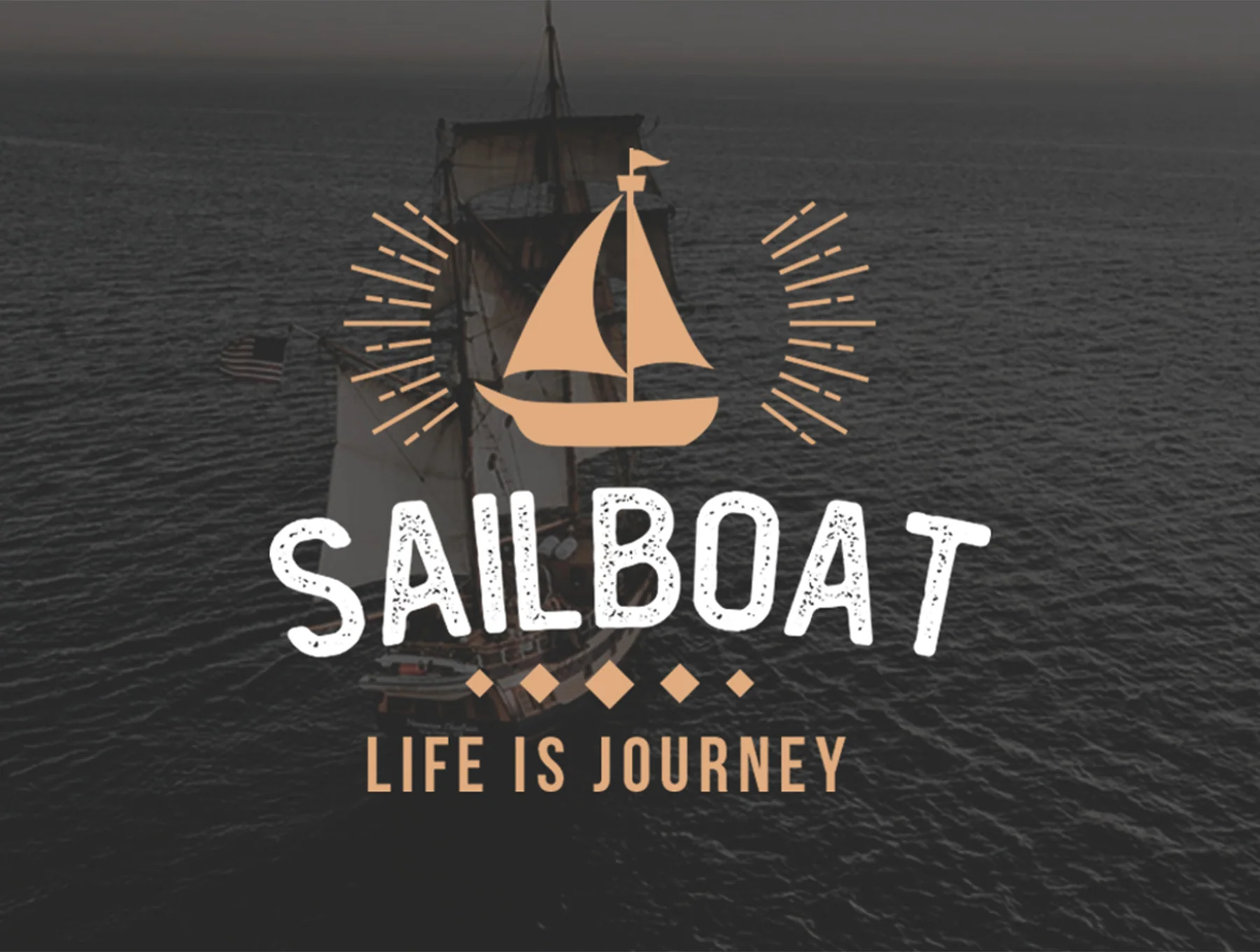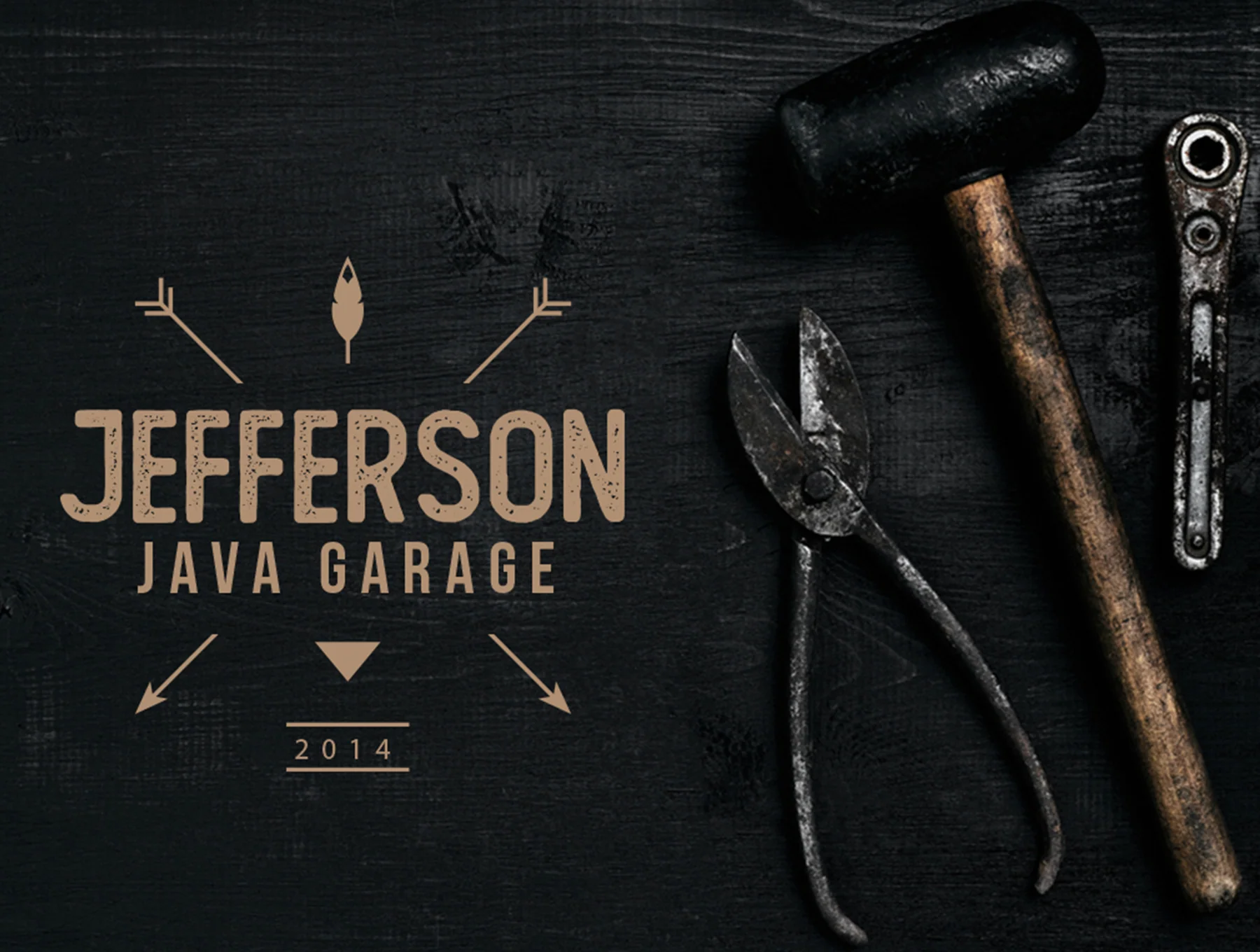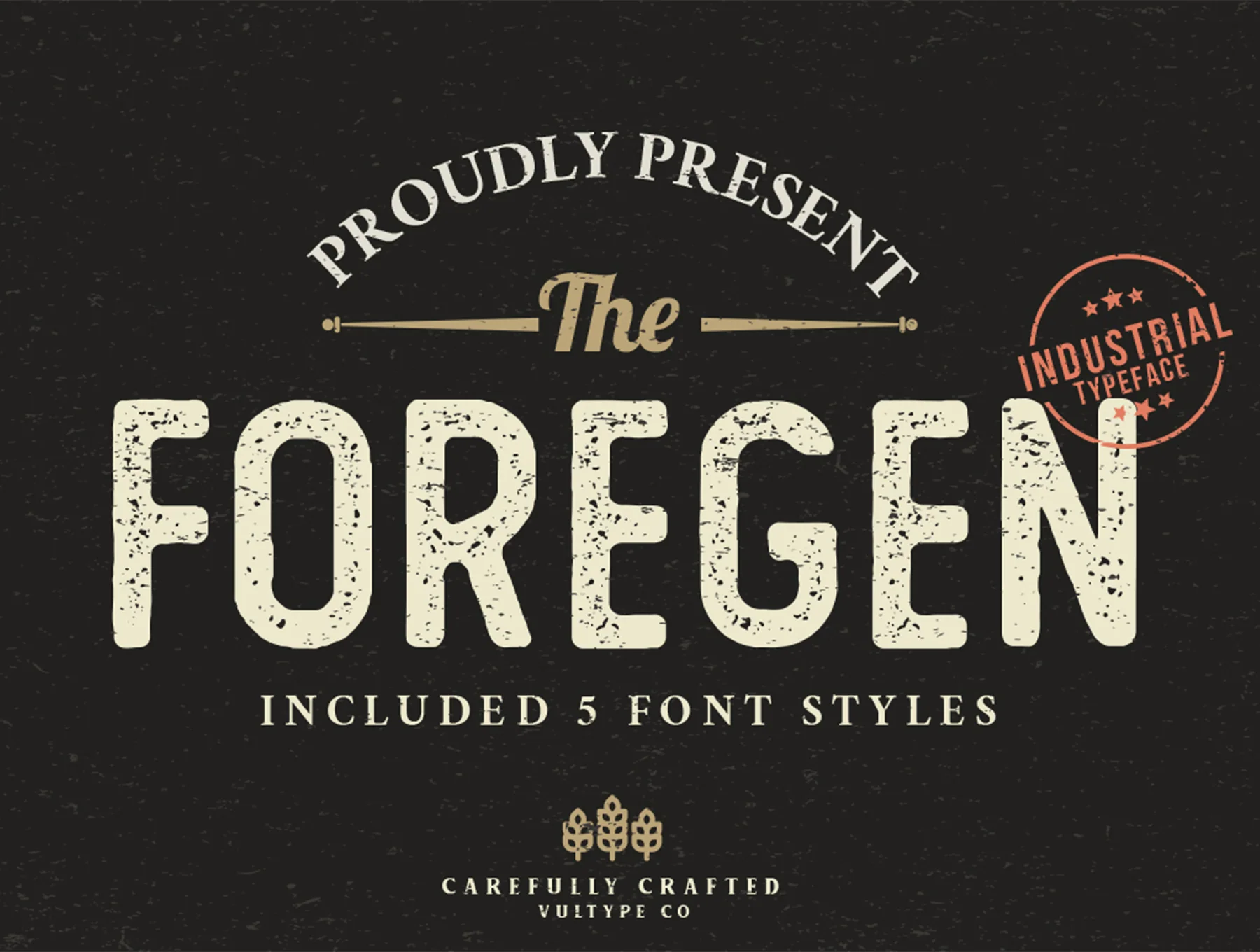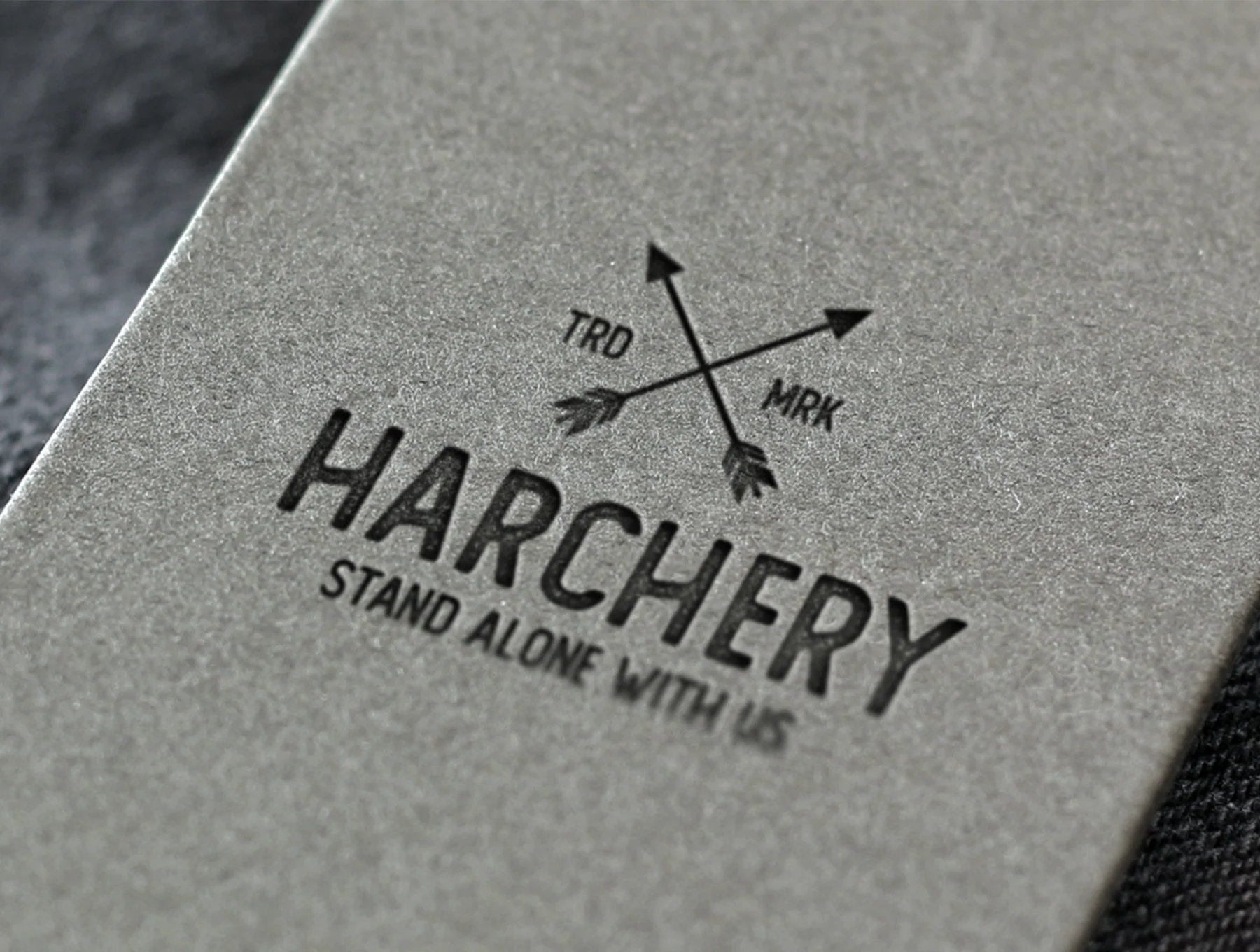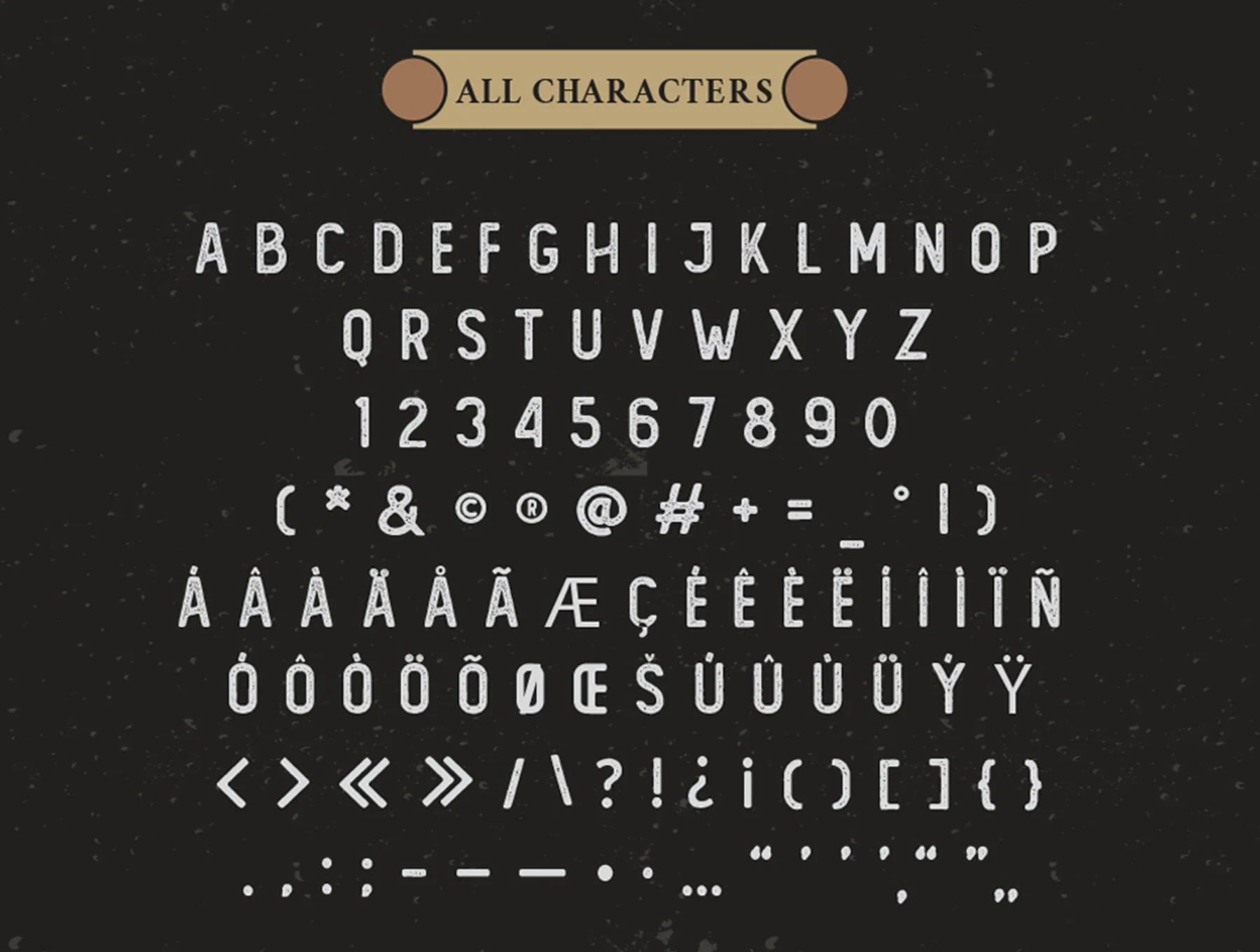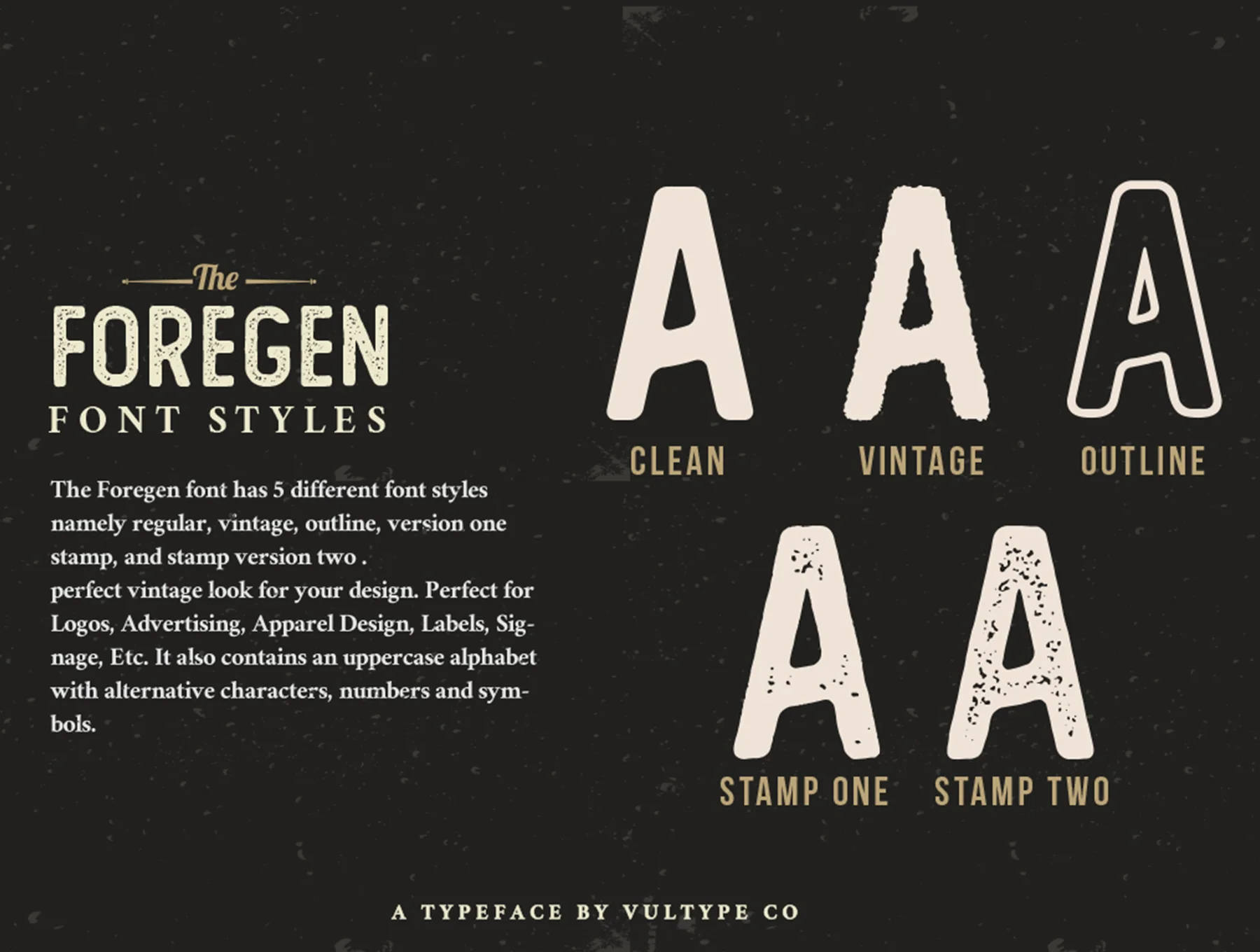
The Foregen Vintage Font
The Foregen is a retro sans serif typeface featuring 6 distinct styles
Foregen is a retro sans serif typeface with six styles: Regular, Outline, Vintage, Stamp One, and Stamp Two. Crafted with textured detail, it suits logos, branding, lettering, apparel, posters, magazines, signage, ads, and vintage projects. Includes OTF, TTF, WOFF, cases, OpenType features, numbers, punctuation, and multilingual support.